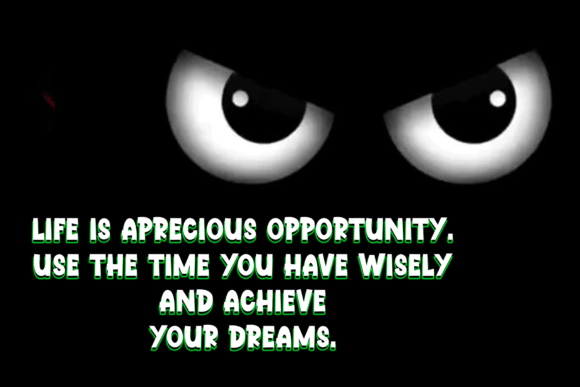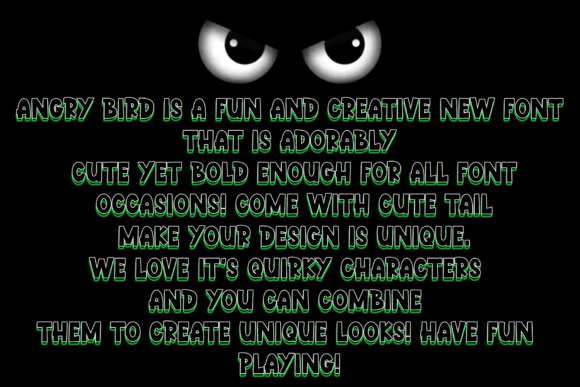
Introducing Angry Bird Font: The Perfect Blend of Freshness and Elegance
Are you tired of using the same old fonts in your design projects? Look no further than Angry Bird Font, a charming display font that brings a sense of freshness and casual elegance to the table. With its fluid strokes and organic lines, this font is sure to evoke a laid-back vibe that’s perfect for a variety of design applications.
The Characteristics of Angry Bird Font
So, what makes Angry Bird Font so special? For starters, its fluid strokes and organic lines give it a unique and playful feel that’s hard to find in other fonts. The font’s casual elegance makes it perfect for designers who want to add a touch of warmth and personality to their work. Whether you’re working on a branding project, creating invitations, or designing social media graphics, Angry Bird Font is the perfect choice.
One of the best things about Angry Bird Font is its versatility. This font can be used in a wide range of design projects, from:
- Branding: Use Angry Bird Font to create a unique and memorable brand identity that sets you apart from the competition.
- Invitations: Add a touch of warmth and personality to your invitations with Angry Bird Font, perfect for weddings, birthday parties, and other special occasions.
- Social Media Graphics: Use Angry Bird Font to create eye-catching social media graphics that grab attention and drive engagement.
- Packaging: Add a personal touch to your product packaging with Angry Bird Font, perfect for food, beverage, and lifestyle brands.
Why Designers and Crafters Love Angry Bird Font
So, why do designers and crafters love Angry Bird Font? Here are just a few reasons:
- Unique and Playful: Angry Bird Font is a breath of fresh air in a world of boring, generic fonts.
- Easy to Read: Despite its playful feel, Angry Bird Font is easy to read and understand, making it perfect for body text and headlines.
- Customizable: With its wide range of font styles and weights, Angry Bird Font can be customized to fit your design needs.
How to Use Angry Bird Font in Your Designs
Using Angry Bird Font in your designs is easy. Here are a few tips to get you started:
- Pair it with Other Fonts: Angry Bird Font pairs well with a variety of other fonts, including sans serifs, and scripts.
- Experiment with Font Sizes: Angry Bird Font looks great in a variety of font sizes, from large headlines to smaller body text.
- Add a Pop of Color: Use Angry Bird Font to add a pop of color to your designs, perfect for highlighting important information or creating visual interest.
In conclusion, Angry Bird Font is a charming display font that’s perfect for designers and crafters who want to add a touch of freshness and elegance to their work. With its fluid strokes, organic lines, and casual elegance, this font is sure to evoke a laid-back vibe that’s perfect for a variety of design projects. Whether you’re working on branding, invitations, social media graphics, or packaging, Angry Bird Font is the perfect choice.